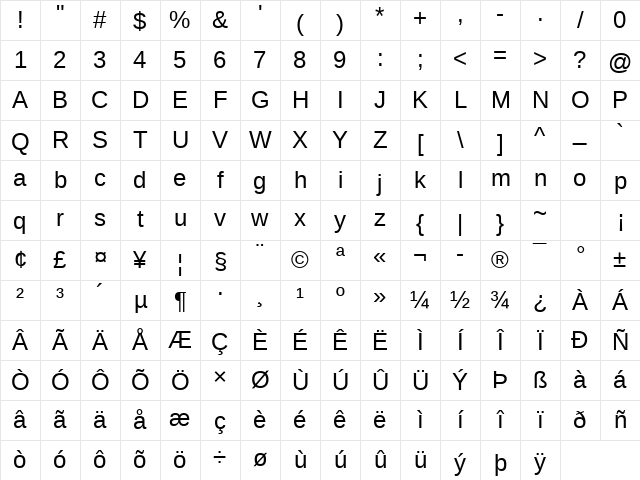
Liberation Sans Regular
Foundry: Ascender Corporation
Designer: Steve Matteson
Design Context for Liberation Sans
Liberation Sans is a composed and adaptable typeface that performs quietly and consistently across a wide range of design contexts.